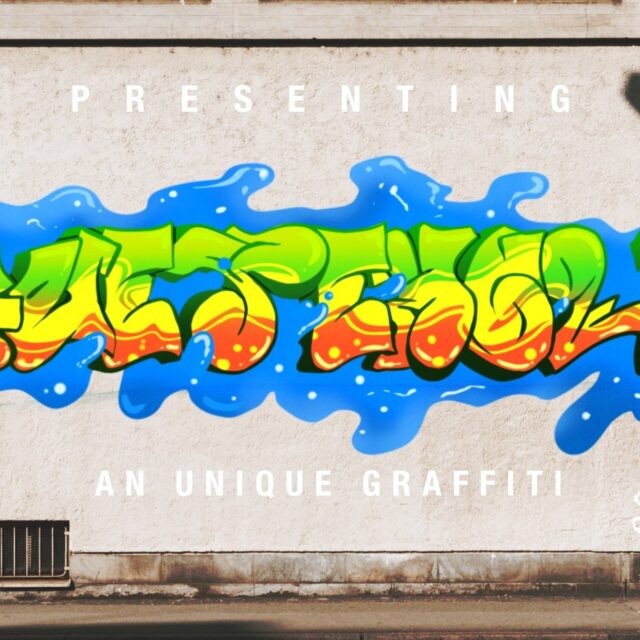
About Guetemole
“Guetemole” is a bold and bubble-style graffiti font. Fonts of this nature typically feature rounded and inflated letterforms, resembling bubbles or balloons. They impart a playful and lively aesthetic to text, often used in designs targeting a youthful or fun audience.
By using “Guetemole,” you can bring a cheerful and playful vibe to your designs. This font is suitable for various projects, especially those seeking a bold and bubbly typographic style, such as in posters, street art, or designs aimed at children or a light-hearted audience.